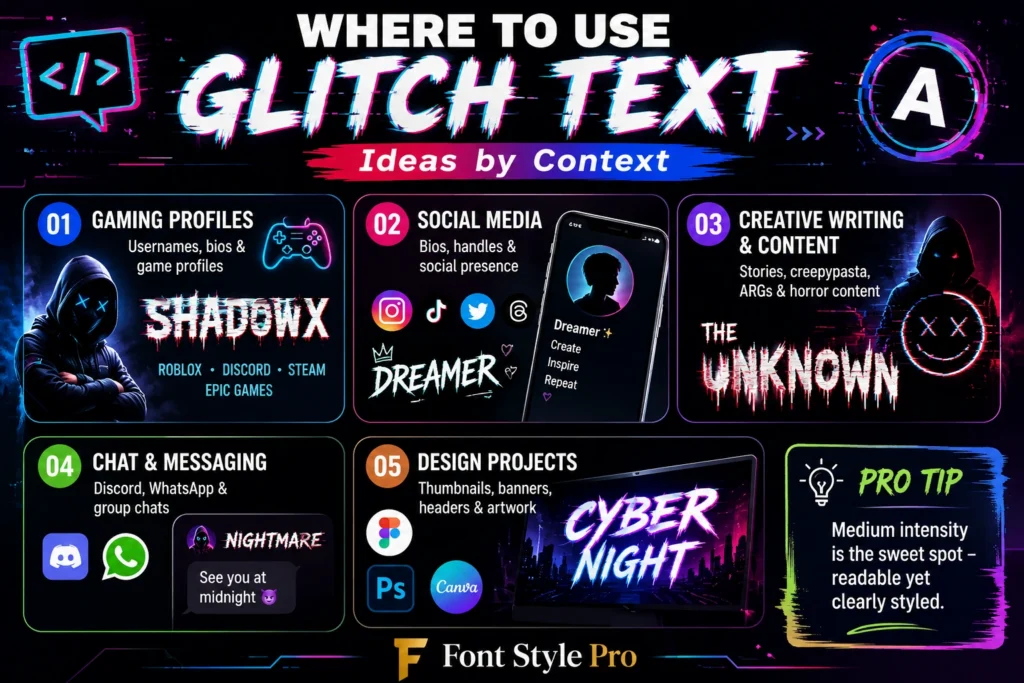
Glitch Text Generator: Copy & Paste Corrupted Text for Roblox, Minecraft & More
A glitch text generator is a free online tool that converts normal text into distorted, corrupted-looking characters you can copy and paste anywhere: Discord bios, Roblox usernames, Instagram captions, Minecraft chat, you name it. It works by stacking special Unicode symbols (called combining diacritical marks) on top of your letters to create that broken, glitched-out look.
Type your text into the generator below, pick an intensity level (light to extreme), and hit copy. The output is real Unicode text (not an image), so it pastes directly into social media profiles, game usernames, and messaging apps on any device.
What Is Glitch Text, Exactly?
Glitch text is normal text transformed to look digitally corrupted by overlaying Unicode combining characters above, below, or through each letter. The result looks like a software error or a corrupted file, but it’s just regular text your keyboard can’t type.
It’s not a font file you install. There’s nothing to download. The characters are part of the Unicode standard, which means they render on virtually every modern phone, computer, browser, and app. No special software needed.
You’ve probably seen it used in horror game aesthetics, creepypasta forums, edgy Discord usernames, or Halloween posts. That “my text is melting” look is called Zalgo text, which is the most extreme version of the glitch style. More on that in a second.
Glitch Text vs. Zalgo Text vs. Corrupted Text: What’s the Difference?
People use these terms interchangeably, but they’re not quite the same thing:
TermWhat It Looks LikeHow IntenseCommon Use
Glitch textLetters with light distortion marksLow–MediumUsernames, bios, captions
Corrupted textSimilar to glitch; slightly more garbledLow–HighGaming, horror themes, aesthetics
Zalgo textLetters “dripping” with marks above and belowMedium–ExtremeCreepypasta, horror, shock value
Glitch text is the umbrella term. Zalgo is a specific variant that stacks diacritical marks so heavily the text appears to overflow the line above and below it. The name comes from a 2004 internet meme involving a chaotic entity called Zalgo. The corrupted, disintegrating text style was used to represent his presence in horror comics. It stuck.
Corrupted text is more of an aesthetic label than a technical one. It just means text that’s been deliberately broken to look like a system error.
For copy-paste purposes, all three work the same way. The difference is just how heavy the effect is.
How to Use the Glitch Text Generator
• Type or paste your text into the input box above.
• Choose an intensity level: Light, Medium, Heavy, or Extreme.
• Select glitch direction (optional): marks above the text, below it, or both.
• Click Copy to grab your glitched output.
• Paste it wherever you need it: Roblox, Discord, Instagram, Minecraft, anywhere.
That’s it. The output is standard Unicode text, so no app or platform needs to “support” glitch text specifically. If it supports text, it supports this.
Platform Compatibility Guide: What Actually Works Where
This is the part most guides skip. Knowing where your glitch text will render correctly (and at what intensity) saves you a lot of frustration.
PlatformLight GlitchMedium GlitchHeavy ZalgoNotes
Roblox username✅ Works⚠️ May filter❌ Usually rejectedRoblox filters heavy Unicode in usernames
Roblox bio/description✅✅✅Bios are far more permissive
Discord display name✅✅⚠️ LimitedSome combining chars are stripped
Discord bio/About Me✅✅✅Full support
Minecraft Java (chat)✅✅✅Good Unicode support
Minecraft Bedrock (chat)✅⚠️❌More restricted Unicode rendering
Instagram bio✅✅✅150 character limit applies
TikTok bio✅✅⚠️Heavy Zalgo may display oddly
Twitter / X bio✅✅✅160 char limit; Zalgo chars count extra
WhatsApp / Telegram✅✅✅Full Unicode support
Steam profile✅✅✅Generally permissive
Key rule of thumb: For usernames and display names, use Light or Medium. For bios, descriptions, and posts, you can go as heavy as you want.
Also worth knowing: Unicode combining characters can count as multiple characters toward a platform’s limit. If your bio keeps getting cut off, that’s probably why. Dial back the intensity or shorten the text.
Glitch Text Generator for Roblox
Roblox has a younger, creative player base that loves unusual usernames, so “glitch text generator Roblox” is one of the most common things people search for on this topic.
Here’s what actually works:
For Roblox usernames: Stick to Light intensity. Roblox’s username filter blocks most heavy combining characters. Many Zalgo-style names get rejected during signup. Light glitch often sneaks through because the marks are subtle enough to pass validation.